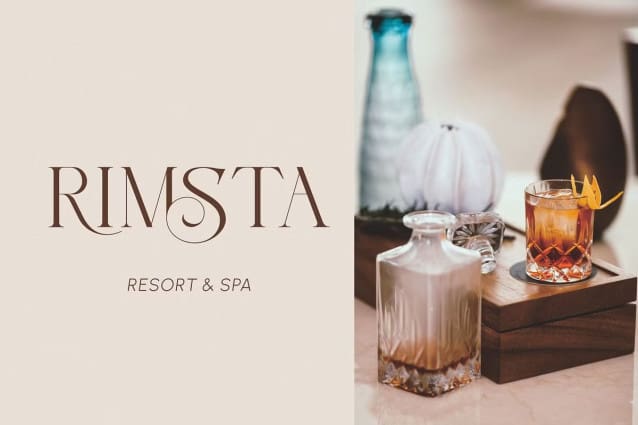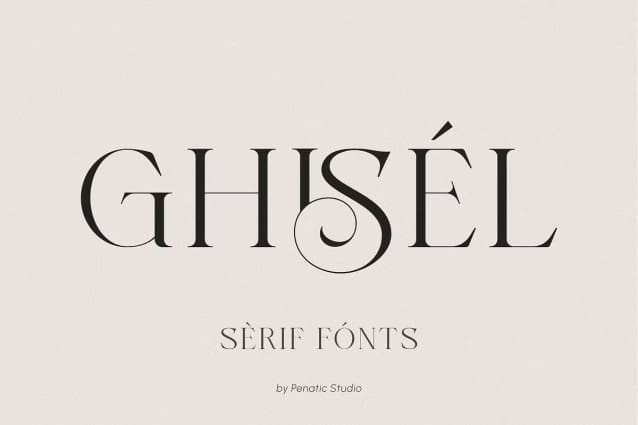
Ghisel Font
Ghisel Font – Modern Serif Font. a modern font designed with subtle curves. with many ligatures and alternative letters that will make your project look more elegant and beautiful. Great for branding projects, logos, wedding designs, social media posts, advertising, product packaging, product designs, labels, photography, watermarks, invitations, stationery and more.